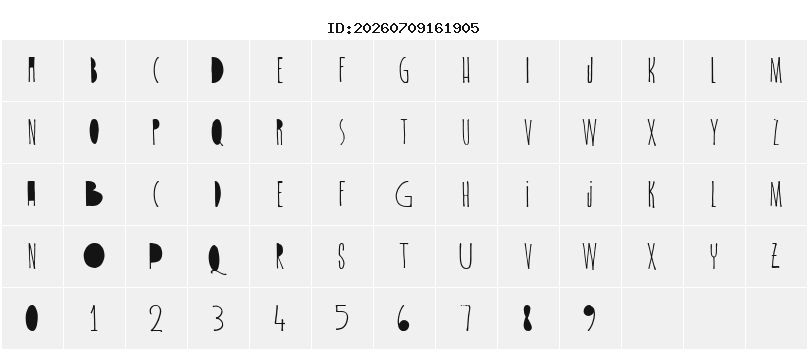
• Font Name: DK Spiderlegs
• Font Style: Blackened
• Designer: David Kerkhoff
• Manufacturer: David Kerkhoff
About DK Spiderlegs.ttf
DK Spiderlegs.ttf is a modern, elegant sans-serif font designed for ultimate readability and visual harmony. Perfect for branding, headlines, web design, and print materials.